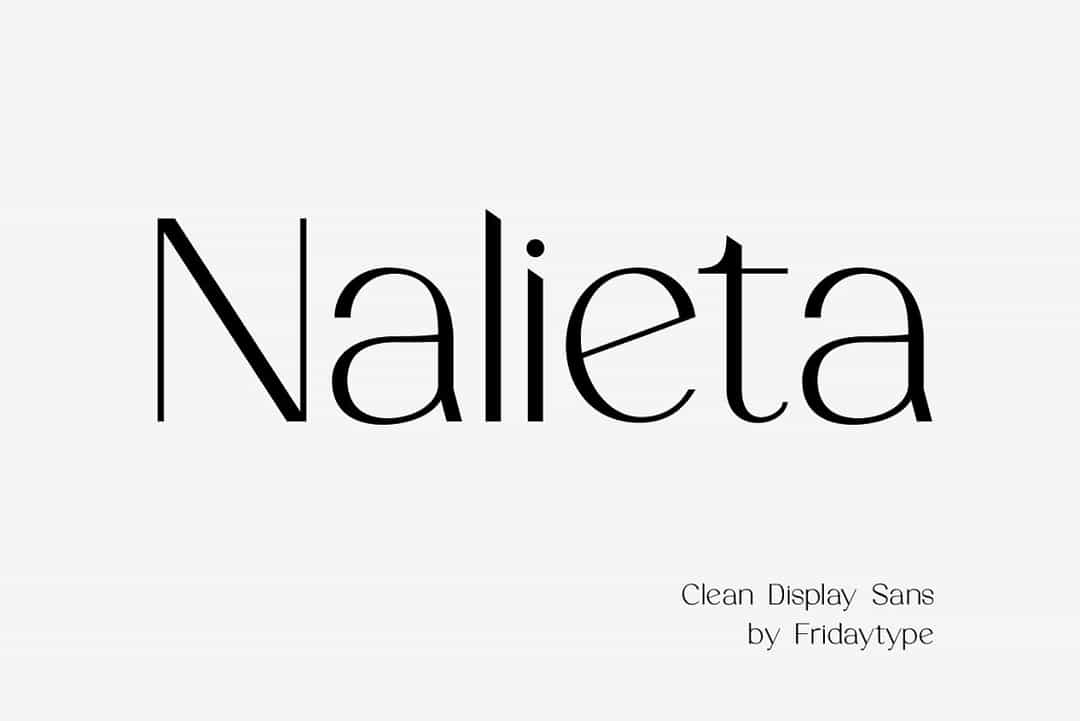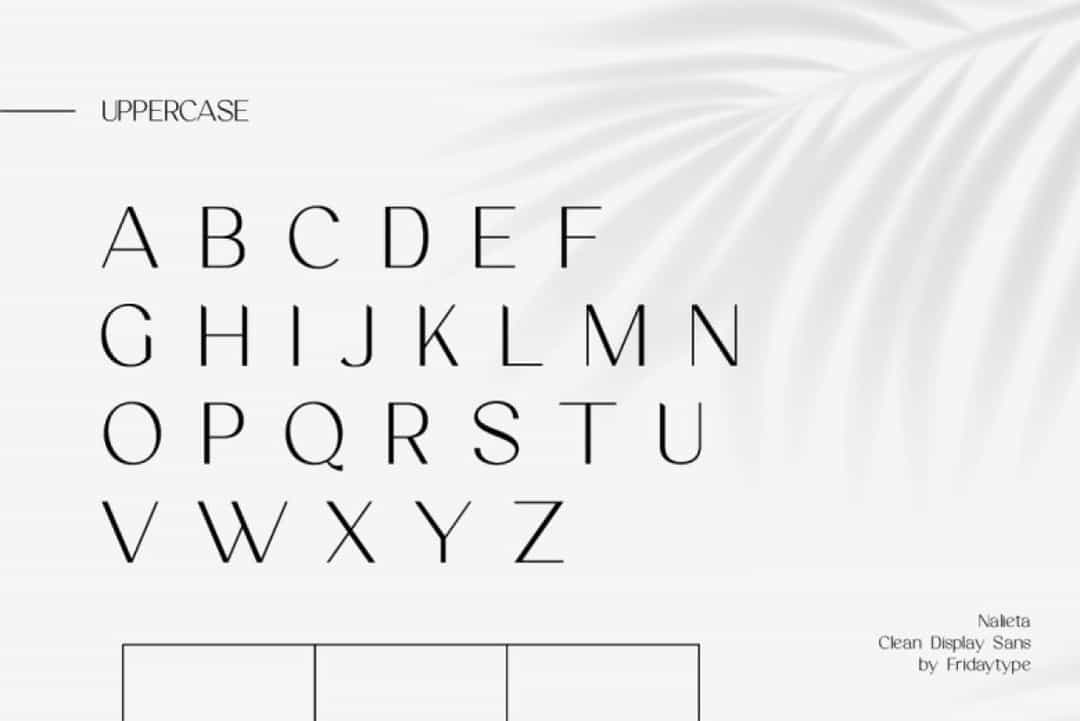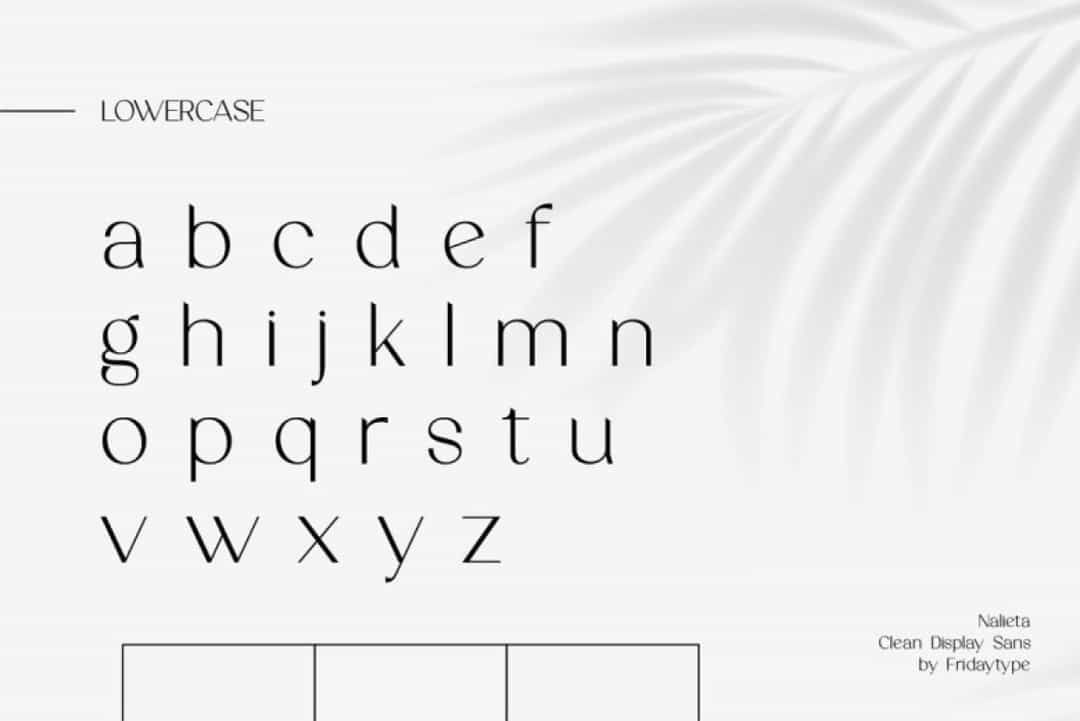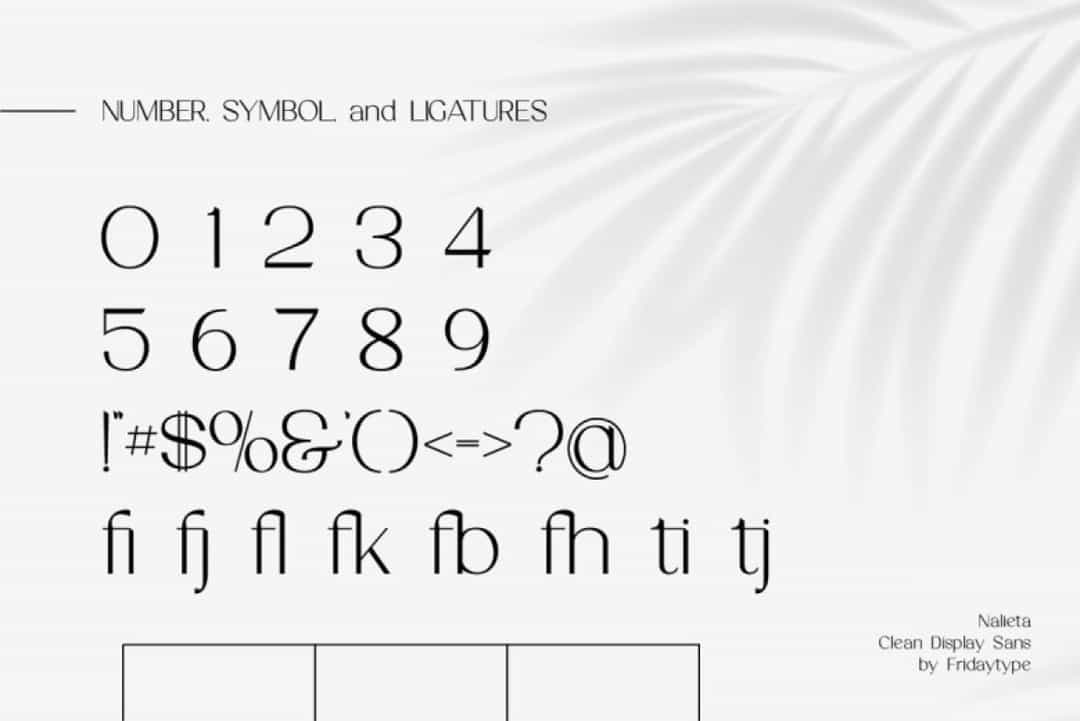
Discover Nalieta Font, part of the Sans Serif Display collection—a versatile and unique font perfect for adding a personal touch to your projects. Download it for free and enjoy crafting designs with style, from invitations to social media posts. This font is available exclusively for personal use, giving you the freedom to create without limits. Unlock your creativity with Nalieta Font today!
Nalieta is an elegant display sans font featuring stylish, simple ligatures. Perfect for elegant projects such as logos, titles magazines and so forth, this font was specially created to offer seamless elegance when creating simple yet clean modern designs such as logos.